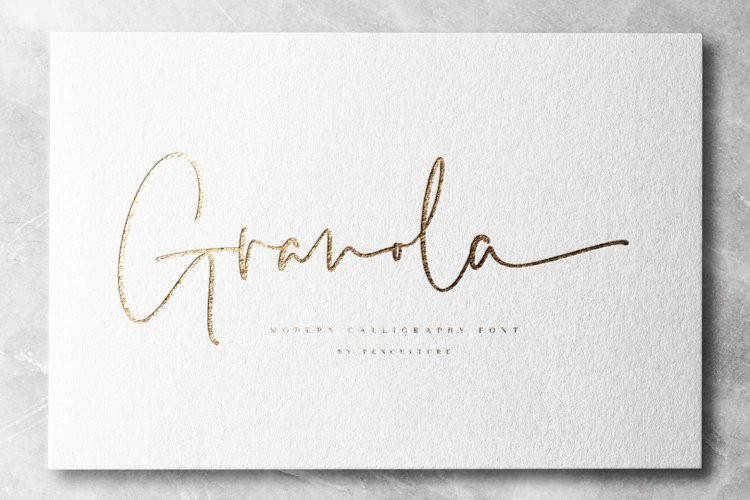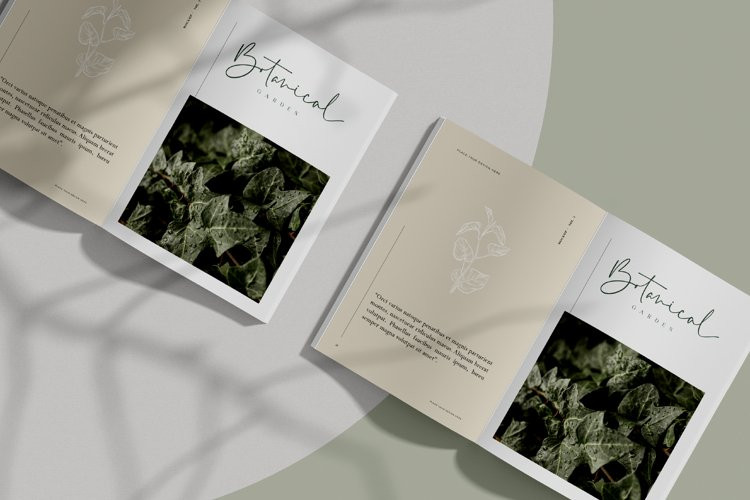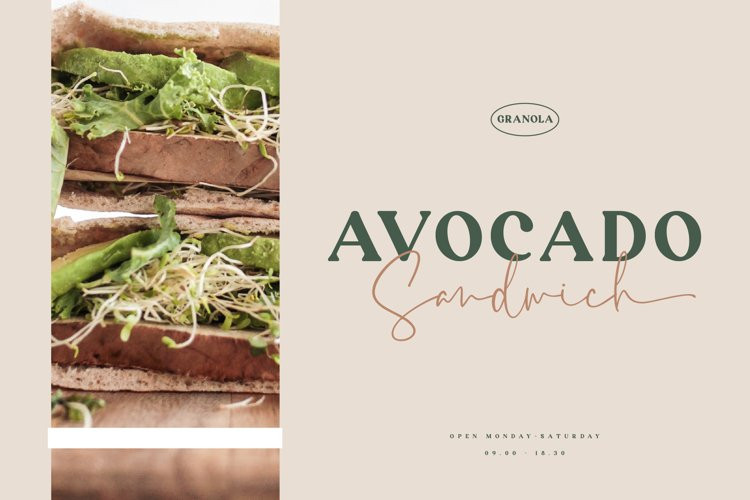
Granola Font
Granola FontIntroducing Granola. A modern calligrphy font with modern and lovely style of script font. This font comes with more than 50 ligatures and more than 20 alternates, so you will find it very easy to mix and match this font in your projects. This font will be very suitable for branding, logo design, magazines, posters, invitations and much more.